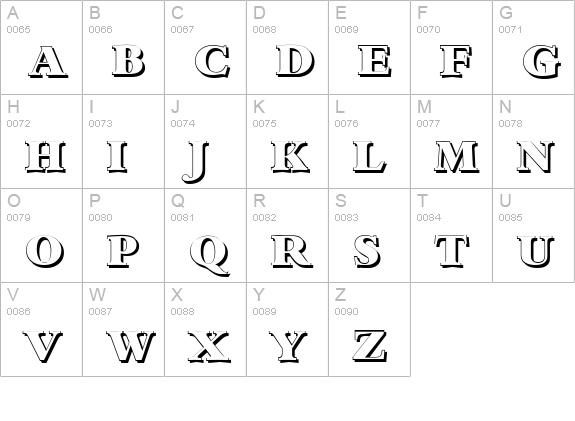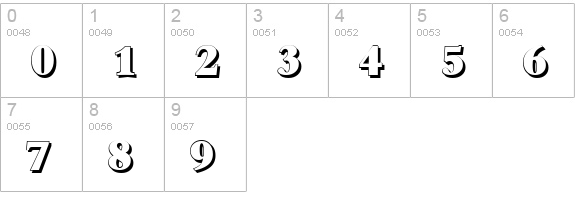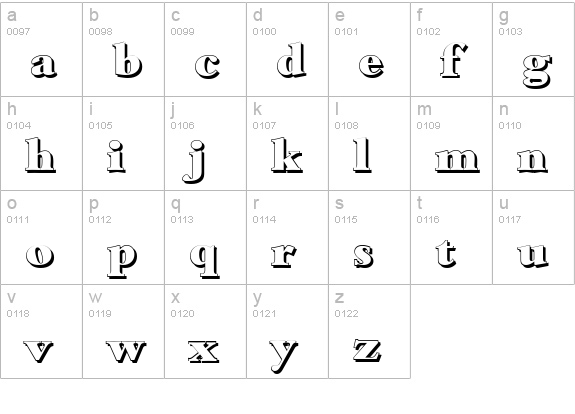
BambergShadow-Heavy-Regular is a heavy, high-impact variant in the BambergShadow typeface family \xE2\x80\x94 well suited to high-impact headlines, posters, and display advertising.
BambergShadow-Heavy-Regular is a bold and eye-catching font that exudes a sense of strength and elegance. Its unique shadow effect adds depth and dimension to any design project, making it stand out from the crowd. This versatile font is perfect for a variety of applications, from branding to headlines and everything in between. And the best part? BambergShadow-Heavy-Regular is available for free download at FontsMarket.com. This means you can easily access and use this stunning font in your projects without breaking the bank. Don't miss out on the opportunity to enhance your designs with the striking aesthetic of BambergShadow-Heavy-Regular - download it today and elevate your creative endeavors to new heights.